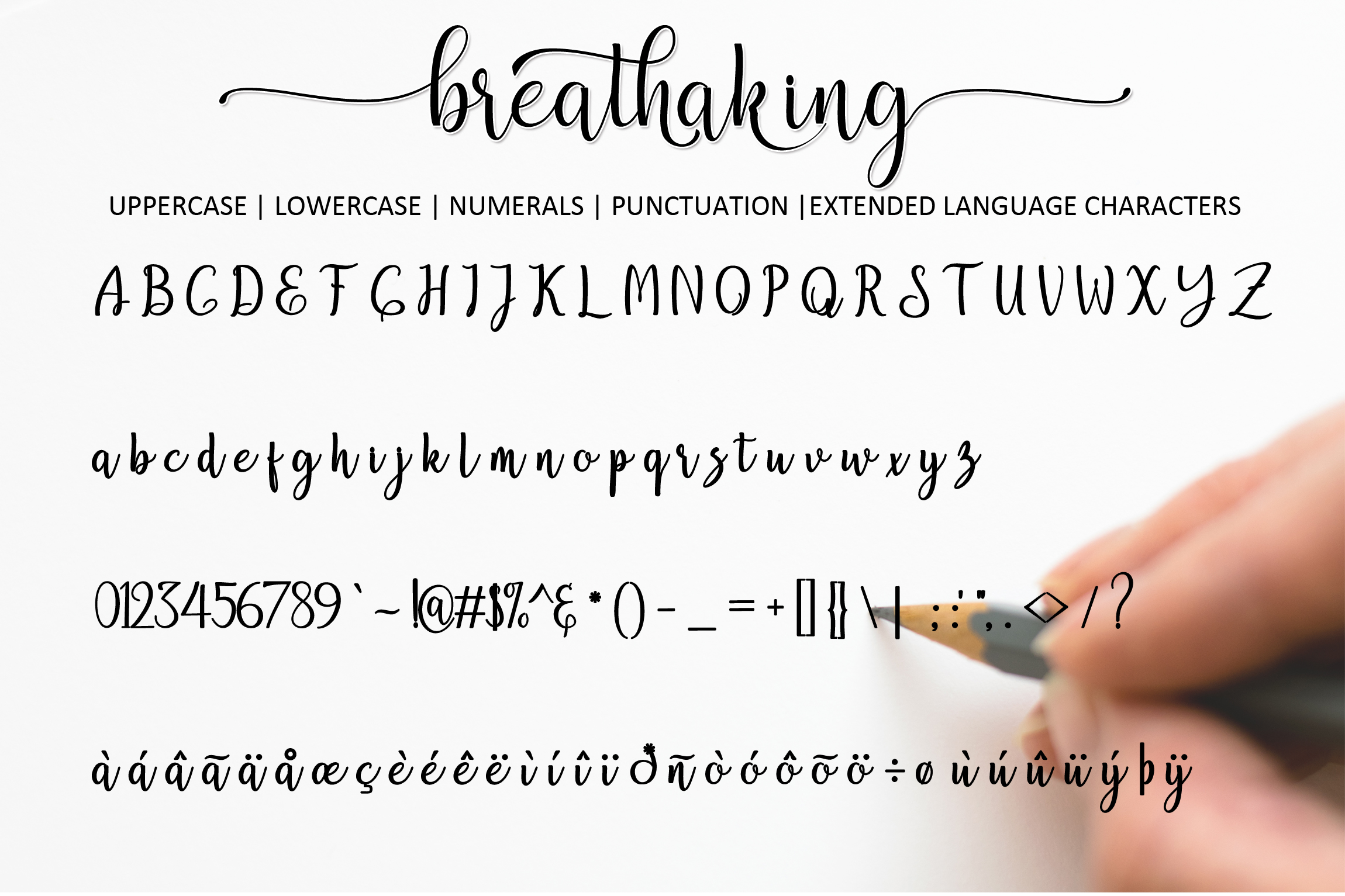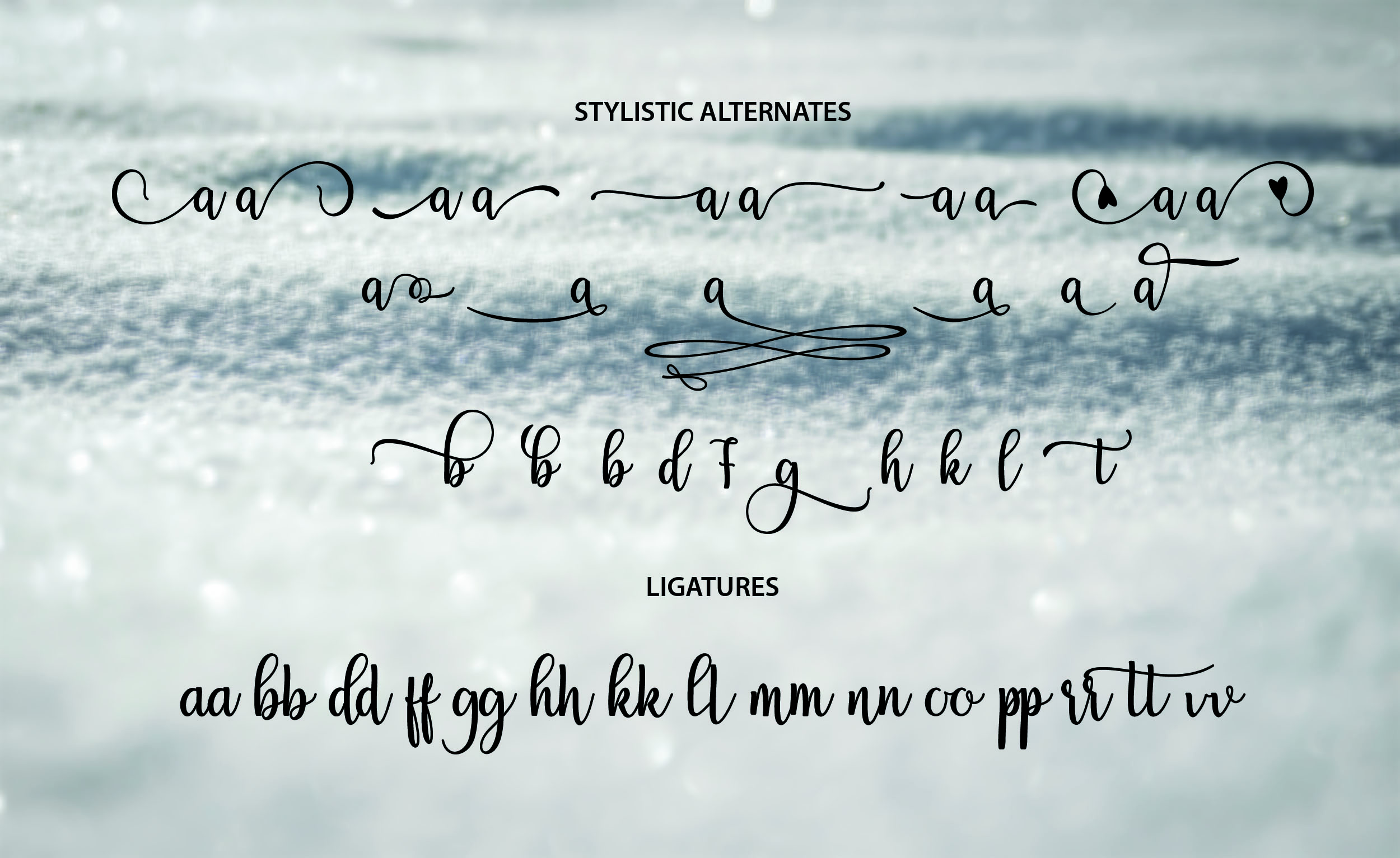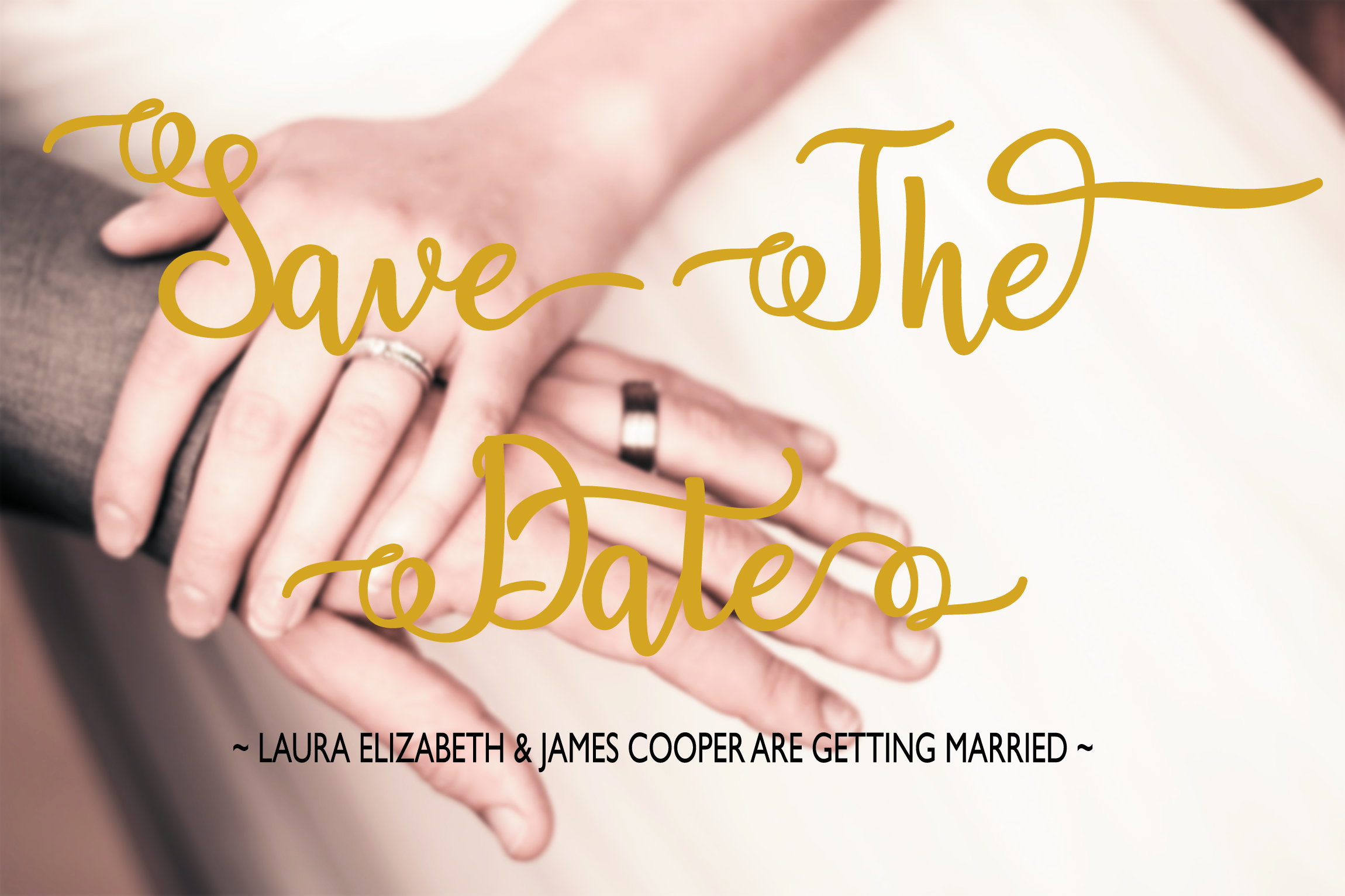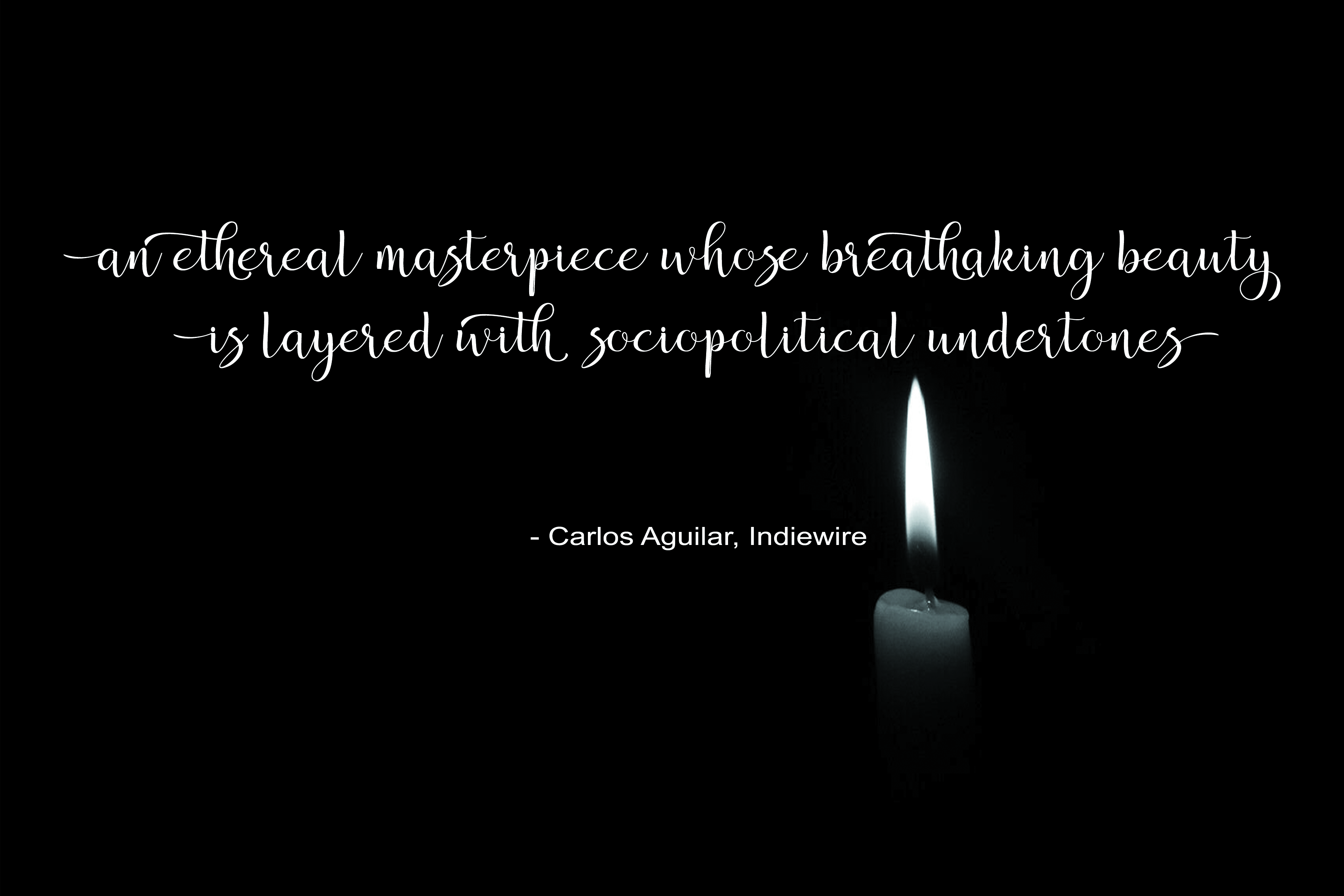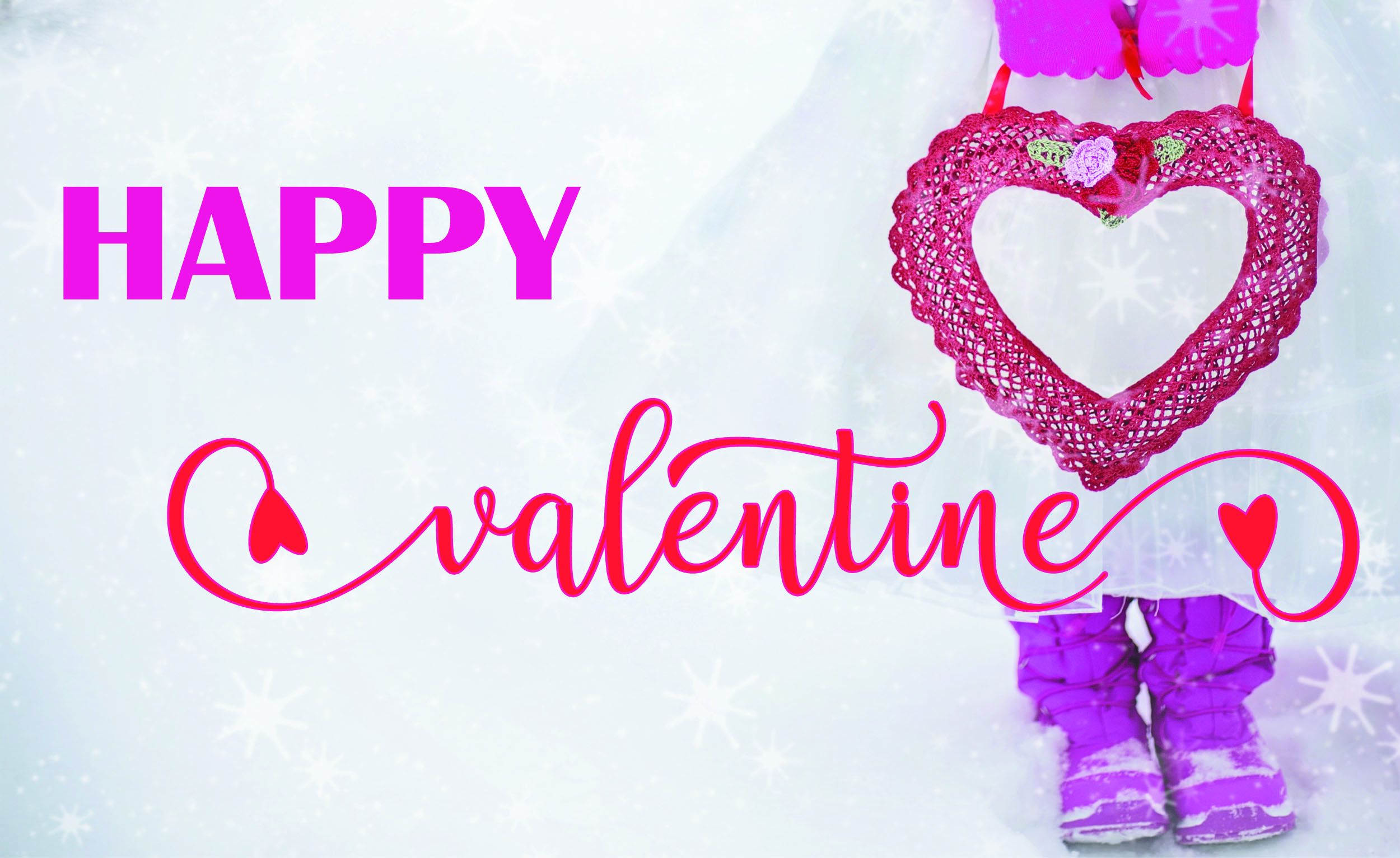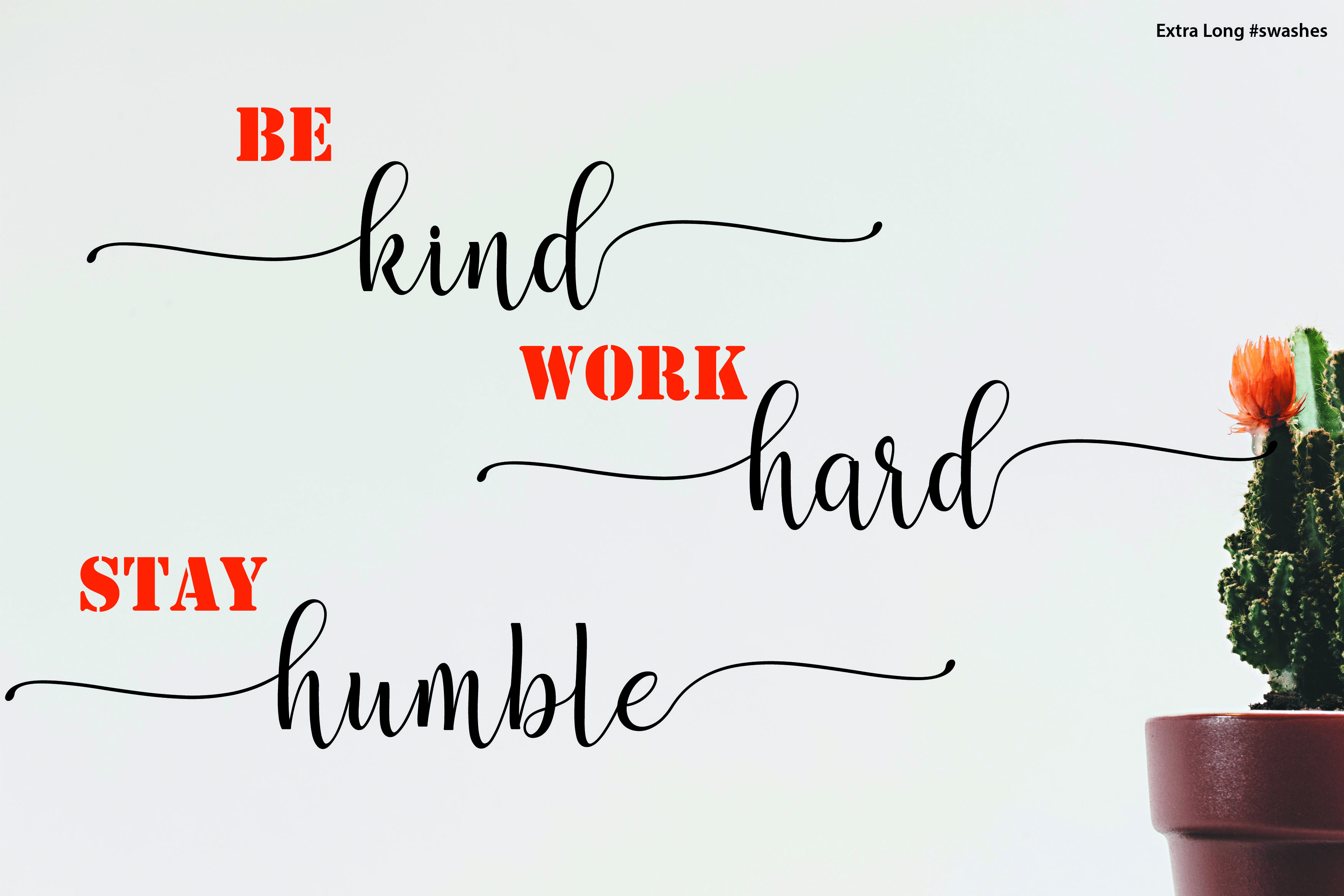
Unleash the Power of Breathaking Script Font: Elevate Your Designs with Elegance
In the world of typography, a well-crafted script font can make all the difference in creating visually stunning designs. Introducing Breathaking, a brand new, fresh, and modern script font that embodies the essence of calligraphy. This exquisite font is perfect for a wide range of display and headline designs, and can add a ton of charm to holiday messages or special events. In this article, we’ll dive into the features and benefits of Breathaking Script Font, and explore how it can elevate your designs to new heights.
The Art of Calligraphy: A Timeless Inspiration
Breathaking Script Font draws inspiration from the art of calligraphy, a centuries-old tradition that requires skill, patience, and creativity. Calligraphy is a beautiful and expressive form of writing that can evoke emotions and convey personality. With Breathaking, you can bring the elegance and sophistication of calligraphy to your designs, without the need for extensive artistic skills.
Key Features of Breathaking Script Font
- Modern and Fresh Design: Breathaking boasts a modern and fresh design that is sure to captivate your audience. Its unique and stylish letterforms make it perfect for creating eye-catching headlines and display designs.
- Calligraphy Style: Crafted in a calligraphy style, Breathaking exudes elegance and sophistication, making it ideal for special events, holiday messages, and high-end branding.
- Versatile and Adaptable: This font is incredibly versatile and can be used for a wide range of design applications, from posters and flyers to social media graphics and website headers.
- Easy to Read: Despite its ornate design, Breathaking is surprisingly easy to read, making it perfect for use in both digital and print materials.
Use Cases for Breathaking Script Font
Breathaking Script Font is an incredibly versatile font that can be used in a variety of design applications. Here are some use cases to get you started:
- Holiday Messages: Add a touch of elegance to your holiday messages with Breathaking. Create stunning Christmas cards, Thanksgiving posters, or Halloween invitations that will leave a lasting impression.
- Special Events: Make your special events unforgettable with Breathaking. Use it to create eye-catching wedding invitations, birthday party decorations, or graduation announcements.
- Display and Headline Designs: Use Breathaking to create stunning display and headline designs that will grab attention and leave a lasting impression.
- Branding and Packaging: Add a touch of sophistication to your branding and packaging with Breathaking. Use it to create elegant logos, product labels, or business cards.
Tips and Tricks for Using Breathaking Script Font
To get the most out of Breathaking Script Font, here are some tips and tricks to keep in mind:
- Pair it with a Simple Font: Pair Breathaking with a simple font to create visual contrast and make your design stand out.
- Experiment with Colors: Don’t be afraid to experiment with different colors and gradients to add depth and interest to your design.
- Use it Sparingly: Use Breathaking sparingly to create emphasis and add elegance to your design. Overusing it can lead to visual clutter.
| Font Name | Breathaking Script Font |
| Author | zulkhairilettering |